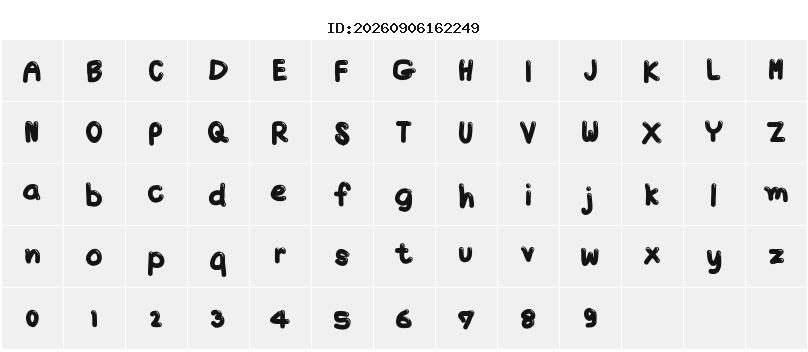
TX Jello Preview
• Font Name: TX Jello
• Full Font Name: TX Jello
• Designer: P Ounjai
About TX Jello.ttf
TX Jello.ttf is a modern, elegant sans-serif font designed for ultimate readability and visual harmony. Perfect for branding, headlines, web design, and print materials.